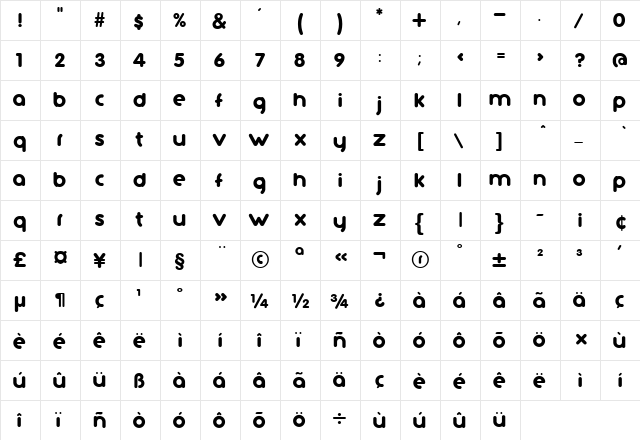
tutano.cc Bold Font Preview
tutano.cc Bold
tutano.cc Bold Font Details
| Foundry | tutano |
Design Context for tutano.cc Typeface
tutano.cc offers clean, dependable letterforms without strong stylistic allegiance, making it a practical choice for designers who need flexibility. The heavy weight commands attention and anchors typographic hierarchies.